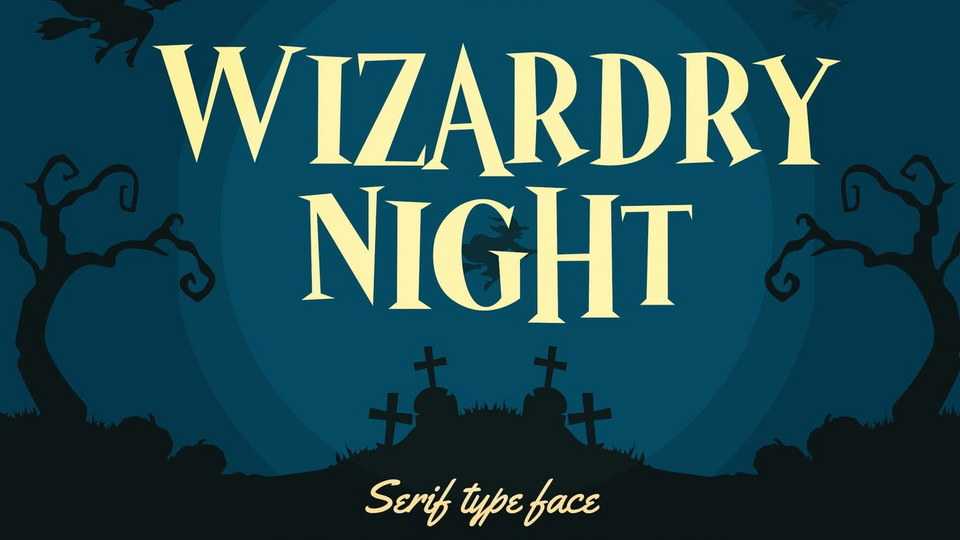
Download Wizardry Night font, a mystery horror movie typeface. Wizardry Night is a night full of magic spells, a foggy road, the smell of freshly made poison from the witch kettle.